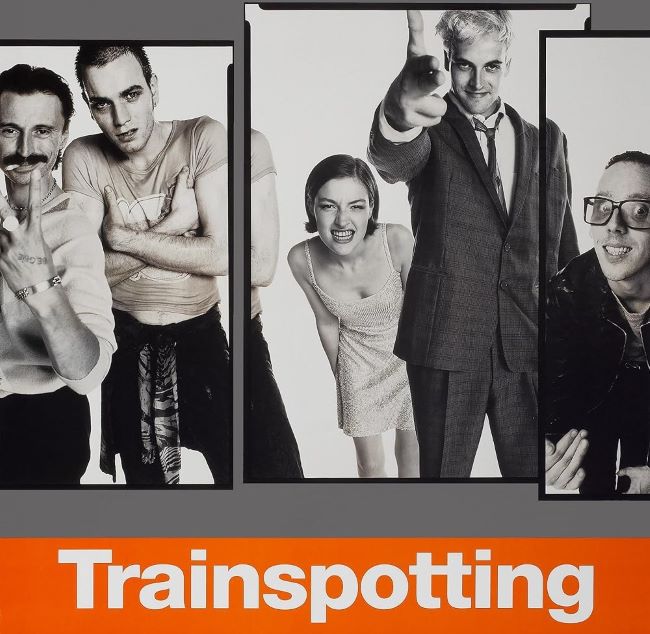
Trainspotting Font
The Trainspotting Font captures the raw, rebellious energy of Danny Boyle’s 1996 cult masterpiece. Its bold, sans-serif letterforms reflect the gritty realism and restless spirit of Edinburgh’s youth culture. Clean yet edgy, the typography conveys intensity, chaos, and dark humor—perfectly echoing the film’s high-energy storytelling and underground aesthetic. The original design closely resembles Inter, a modern, free sans-serif font known for its clarity and confidence. Similar minimalist typefaces such as Helvetica or Arial Black also evoke that same striking, industrial tone, ideal for posters, streetwear branding, or any design that demands attitude and impact.